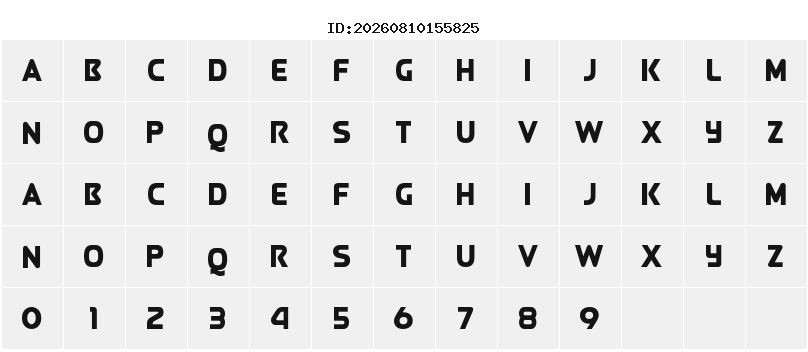
Queen of Camelot Preview
• Font Name: Queen of Camelot
About Queen of Camelot.otf
Queen of Camelot.otf is a modern, elegant sans-serif font designed for ultimate readability and visual harmony. Perfect for branding, headlines, web design, and print materials.